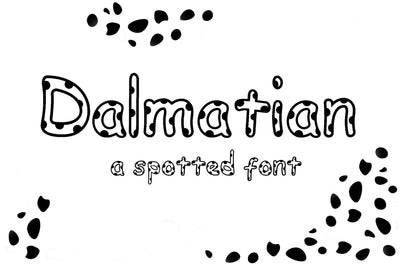
Dalmatian - A Spotted Font
Dalmatian is a spotted, fun font for all your projects.
Dalmatian is an outline font with spots. The interior of the letters are empty space, so the color behind the font will show through. Be creative & color me in!